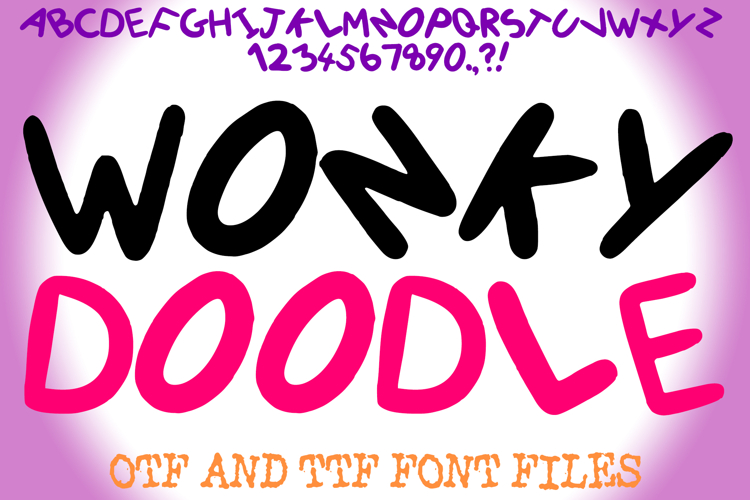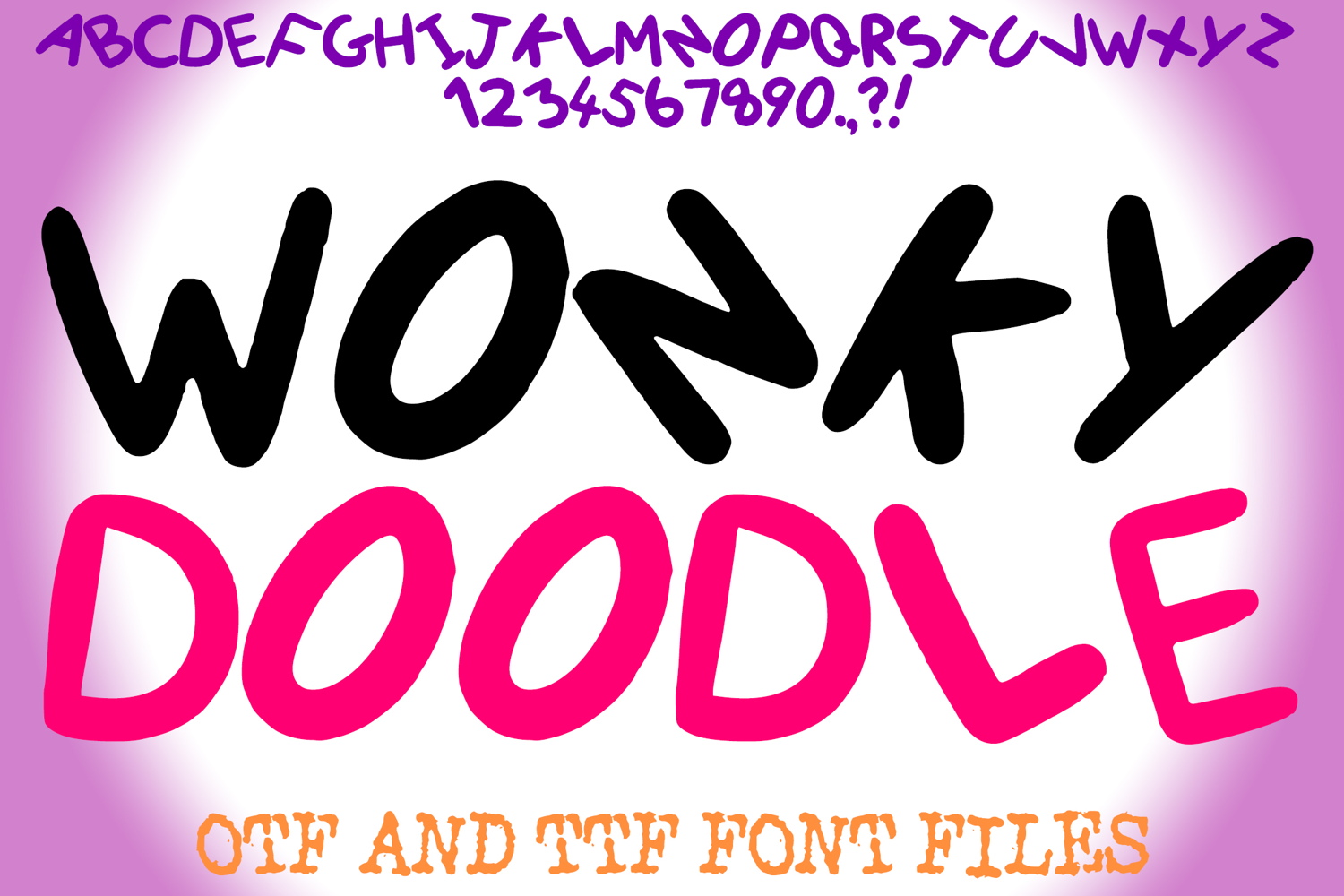
Wonky Doodle Font Playful Hand-Drawn Typeface Quirky Kids
Say goodbye to boring, rigid typography and hello to the Wonky Doodle Font! This bold, hand-lettered typeface was created to embrace the beauty of irregularity. With its bouncing baseline and thick, organic marker strokes, it brings an authentic, "doodled" feel to digital designs that standard fonts just can't replicate.
Despite its quirky and "wonky" nature, the font is designed with a heavy weight to ensure it remains highly readable, making it perfect for catchy headlines, fun quotes, and eye-catching products. Whether you are creating for children's brands, DIY crafts, or just want a font with a ton of personality, the Wonky Doodle Font delivers instant joy.